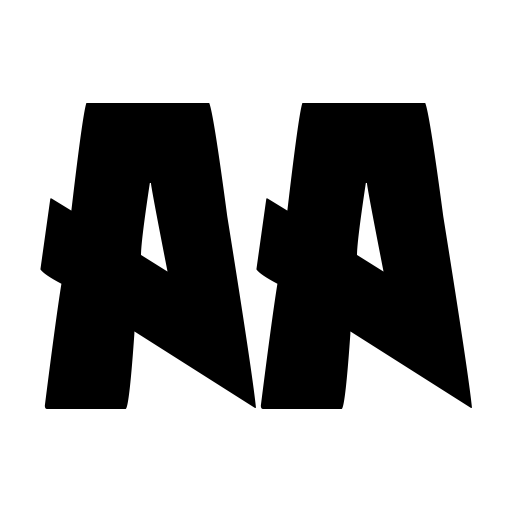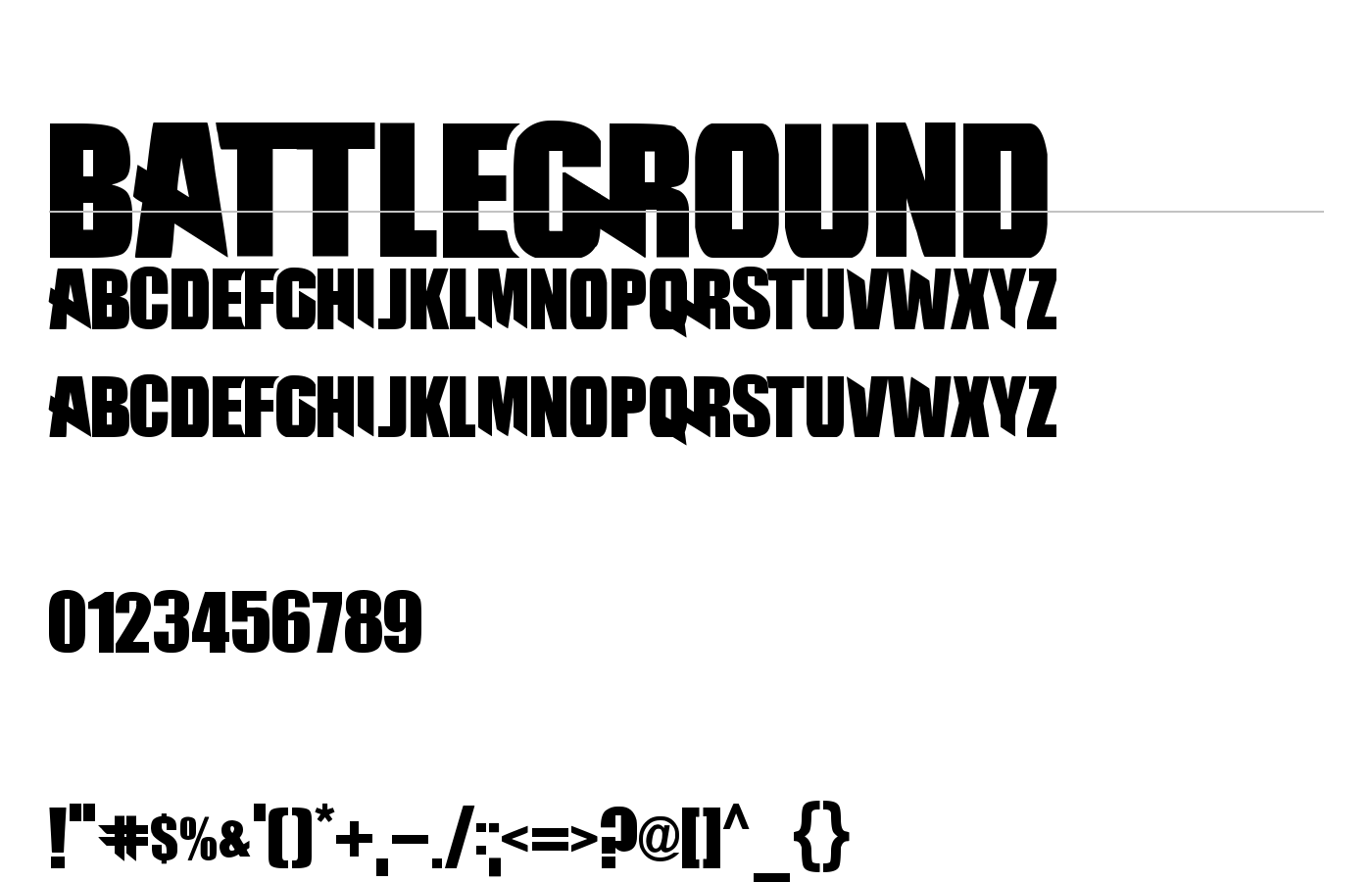
Battleground is a bold, condensed sans serif font with a strong, aggressive personality conveyed through its solid weight and sharp, angular cuts within the letterforms. Its high-impact style, combined with consistent stroke width and unique triangular notches, makes it ideal for commands attention in logos, posters, and branding where a powerful, modern, and edgy statement is needed. This font works best for headings and display uses, especially in industries like gaming, sports, or action-oriented themes.
Battleground Font
About Battleground Font